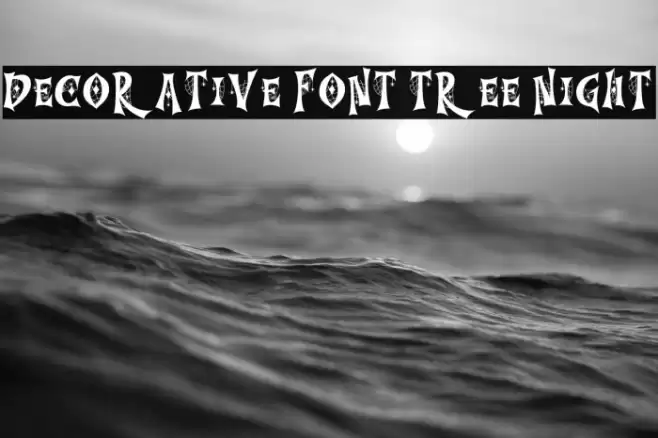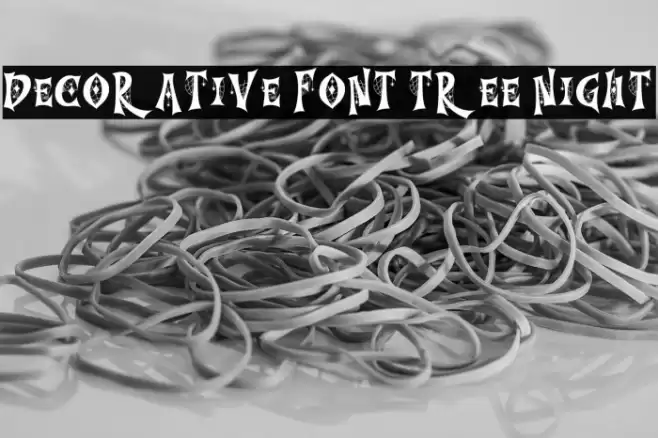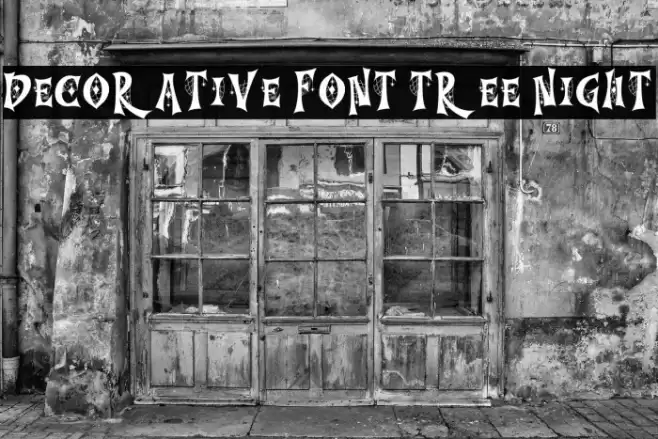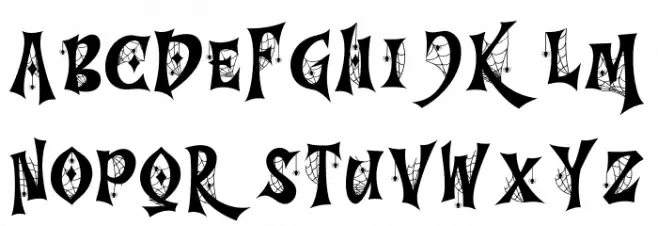
Decorative font Tree Night Font
Decorative font Tree Night Description
This font features a unique and whimsical design, incorporating elements that resemble spider webs within the letterforms. The characters have a playful yet slightly eerie appearance, making them ideal for themes related to Halloween or fantasy. The strokes are bold and angular, with sharp edges and varying thickness that add to the dramatic effect. The intricate details within each letter create a sense of depth and texture, enhancing the overall visual impact. This font is perfect for projects that require a touch of mystery and creativity.
A whimsical, spider web-themed decorative font with bold, angular strokes from Halloween fonts.
- Font: Decorative font Tree Night
- Proposed Projects: Ideal for Halloween-themed designs, fantasy book covers, party invitations, and decorative posters.
- Contrast: High